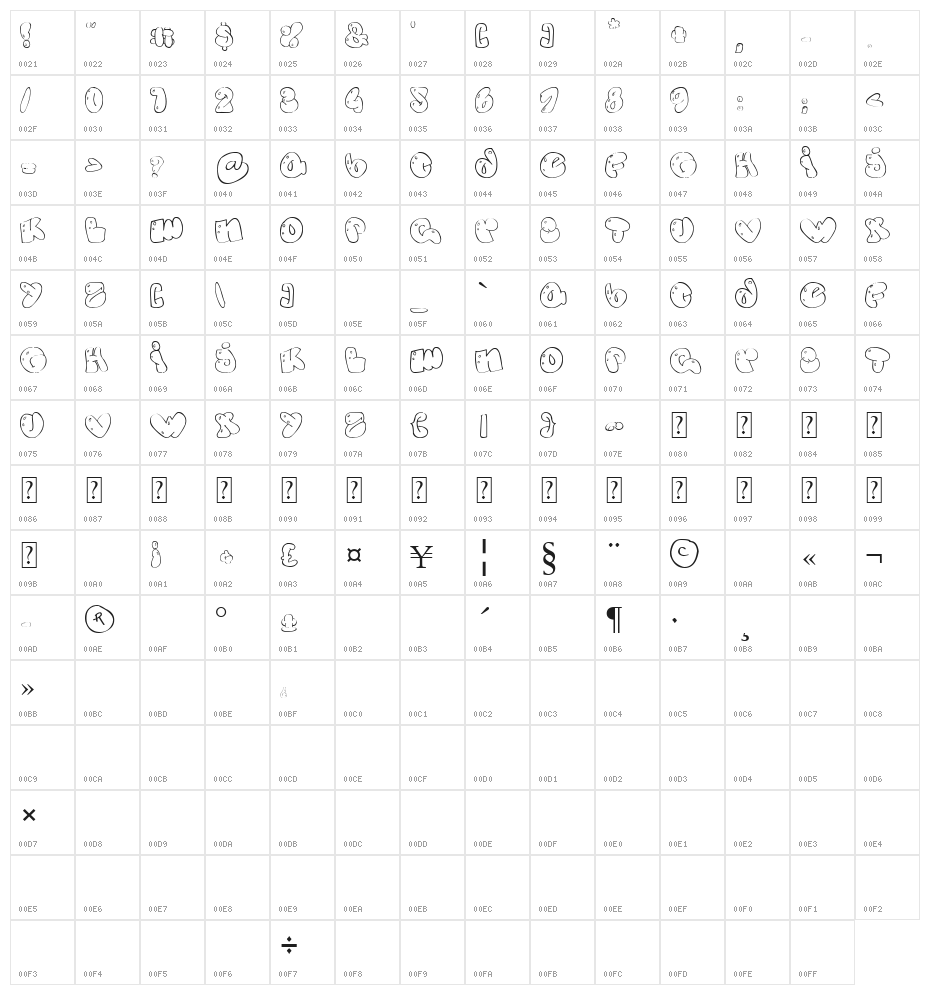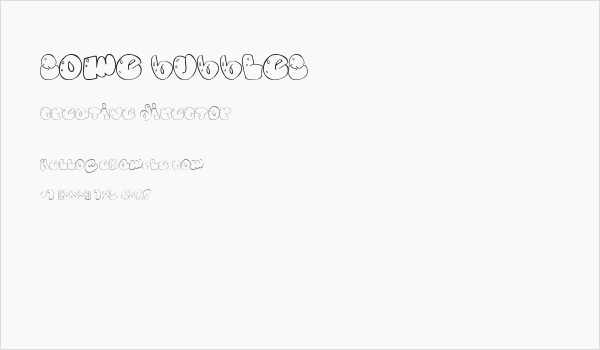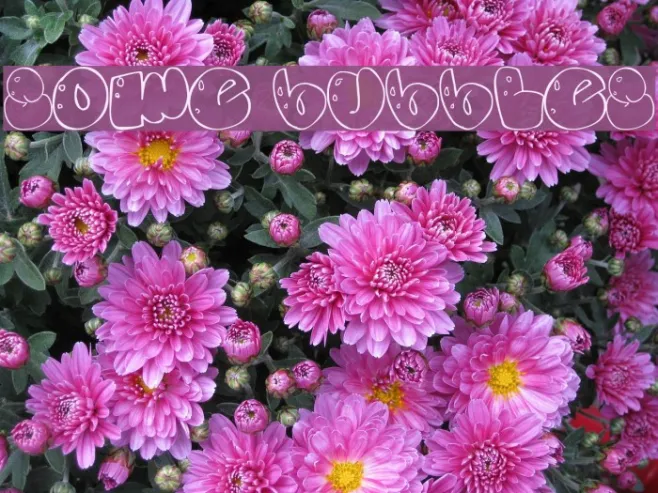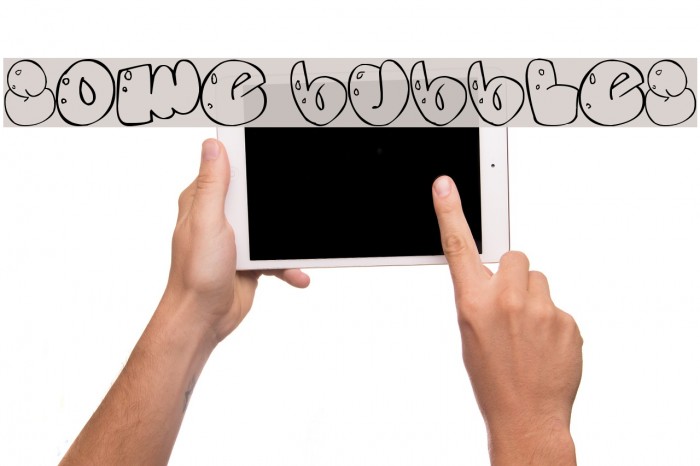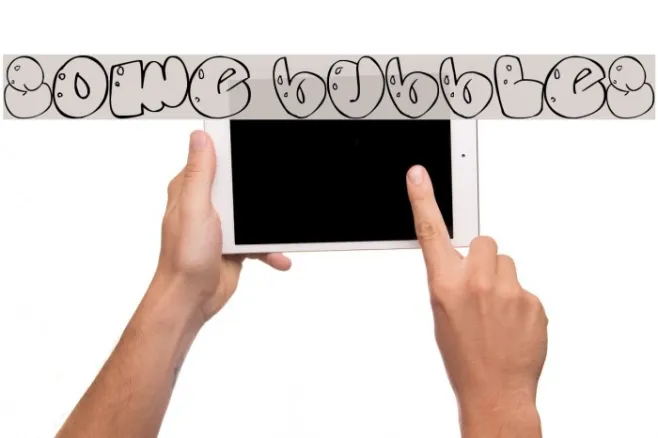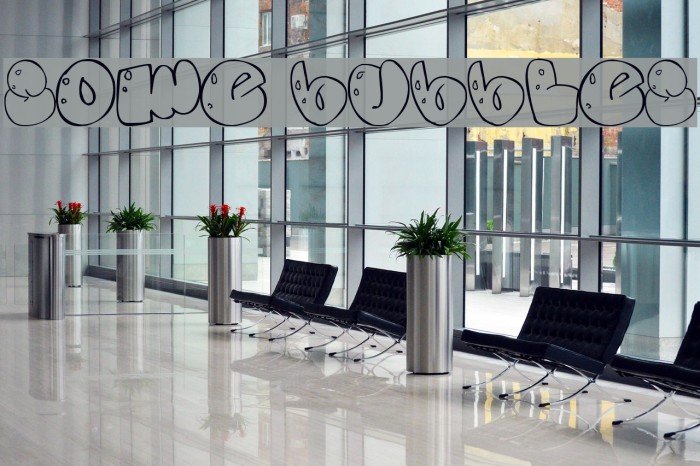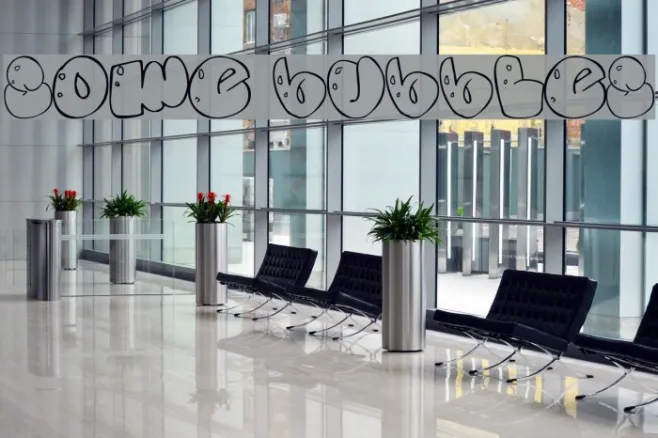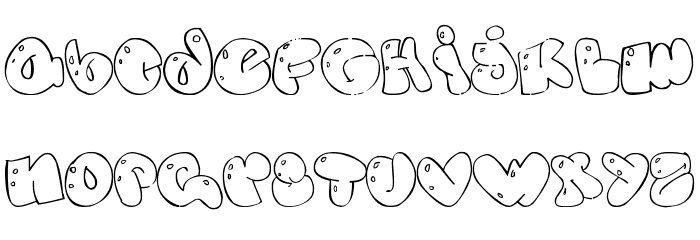
Some bubbles Font
Some bubbles Description
This playful and whimsical font features a bubbly, cartoonish style with rounded, inflated characters that resemble balloons or bubbles. Each letter and number is outlined with a bold, smooth line, giving it a three-dimensional appearance. The font is characterized by its unique, informal design, which includes small circular accents that mimic the look of air bubbles. The overall look is fun and lighthearted, making it ideal for projects that require a touch of humor or creativity. The font maintains consistent proportions across uppercase, lowercase, and numeral characters, ensuring readability while maintaining its distinctive style.
| Proposed Projects | Ideal for children's books, party invitations, playful branding, and creative posters. |